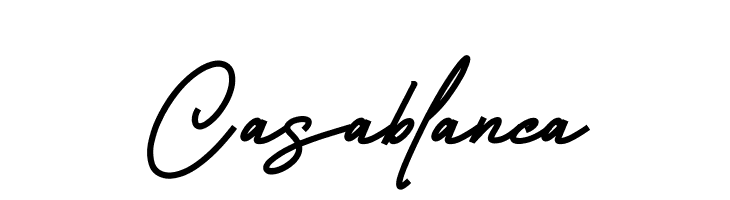
A bold, futuristic font with sharp, angular edges and a geometric structure.
A bold, expressive handwritten font with dynamic strokes.
A cursive, elegant script font with a smooth, flowing style.
A bold, decorative font with a 3D effect and dotted texture.
An elegant script font with flowing, cursive letters and calligraphic flair.
A bold, decorative font with a 3D effect and intricate detailing.
A bold, decorative font with a 3D effect and dotted interior pattern.
A bold, playful font with thick, rounded strokes and strong contrast.